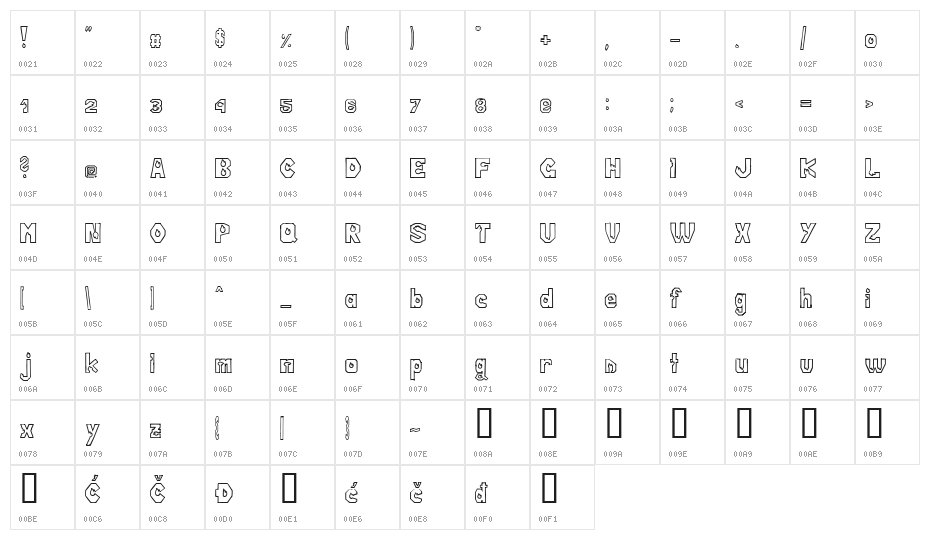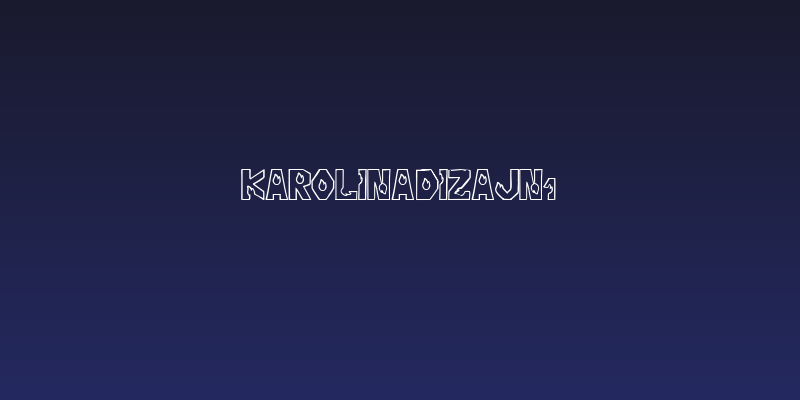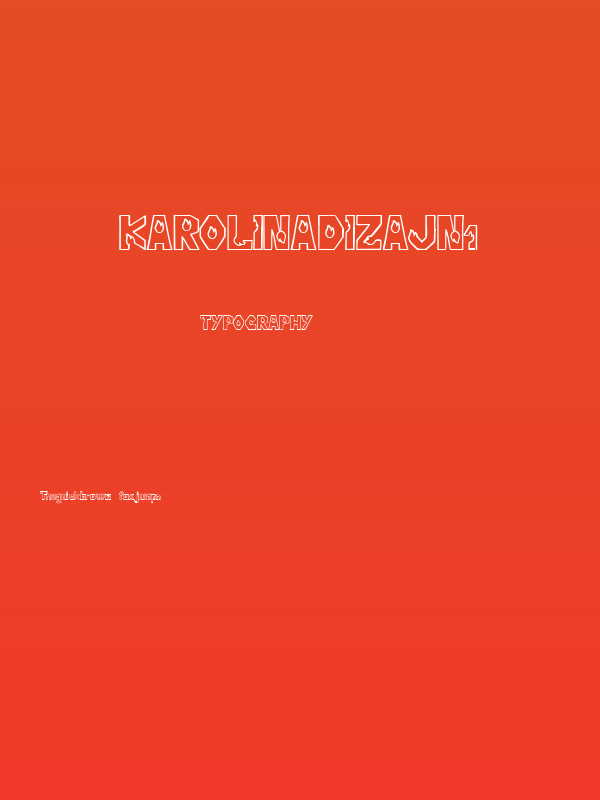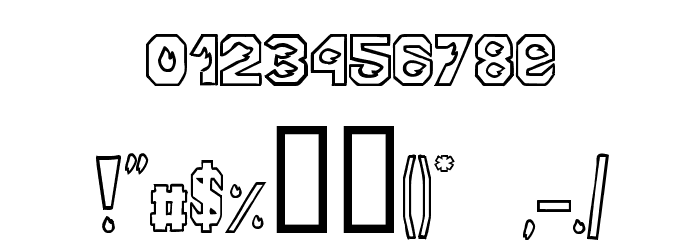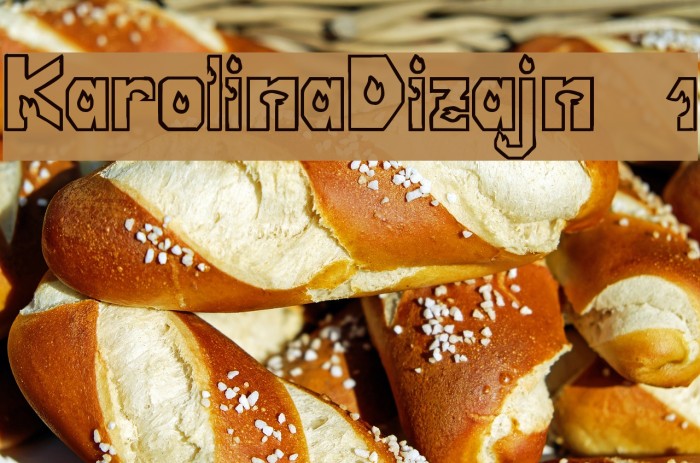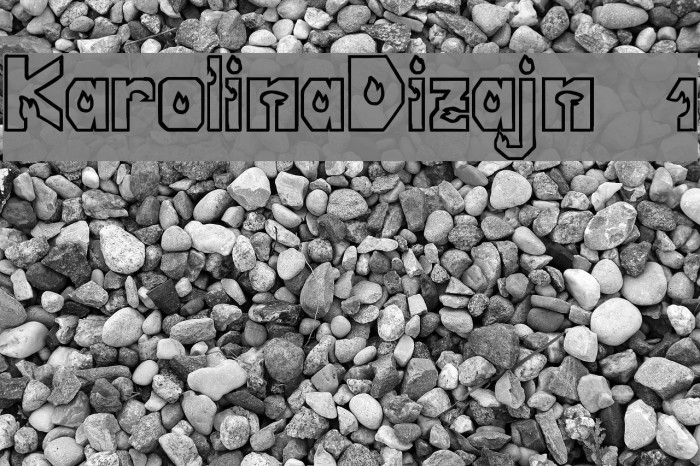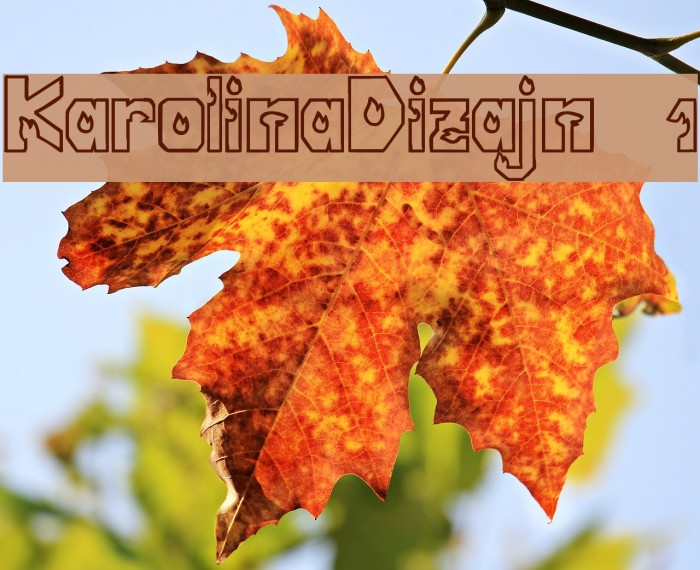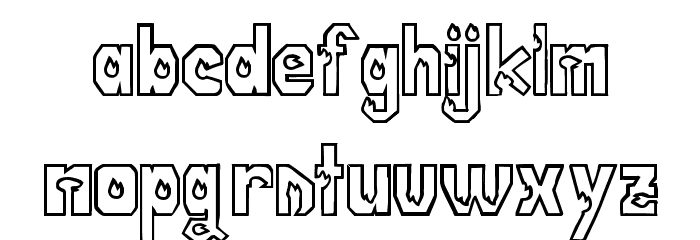
KarolinaDizajn 1 Font
KarolinaDizajn 1 Description
This font features a bold, geometric style with a distinct outline that gives it a three-dimensional appearance. The uppercase letters are angular and robust, while the lowercase letters maintain a similar structure with slightly softer edges. Numbers and special characters follow the same bold and outlined design, ensuring consistency across all glyphs. The font's unique style makes it stand out, with a playful yet structured aesthetic that is both modern and eye-catching.